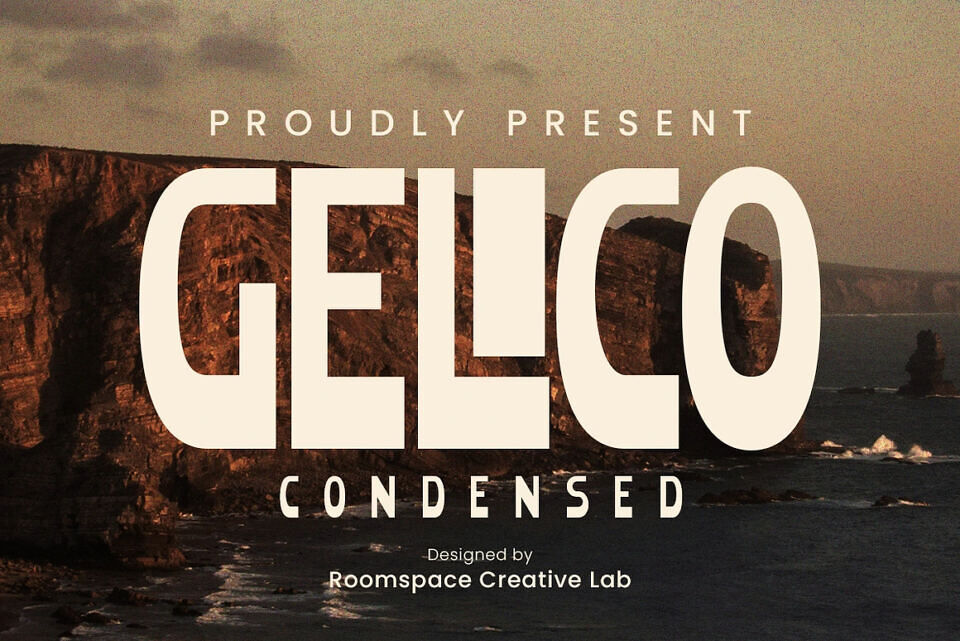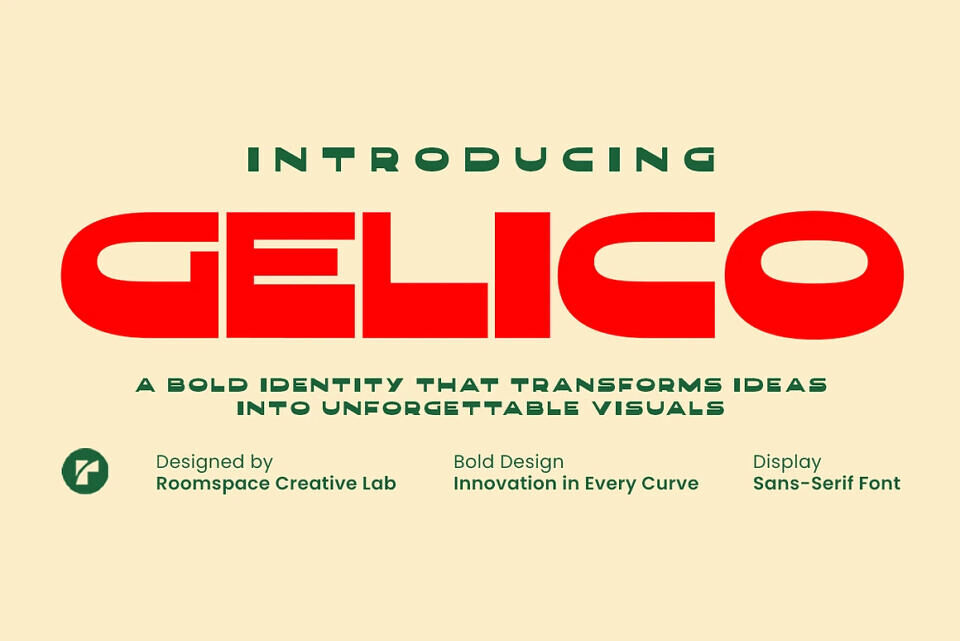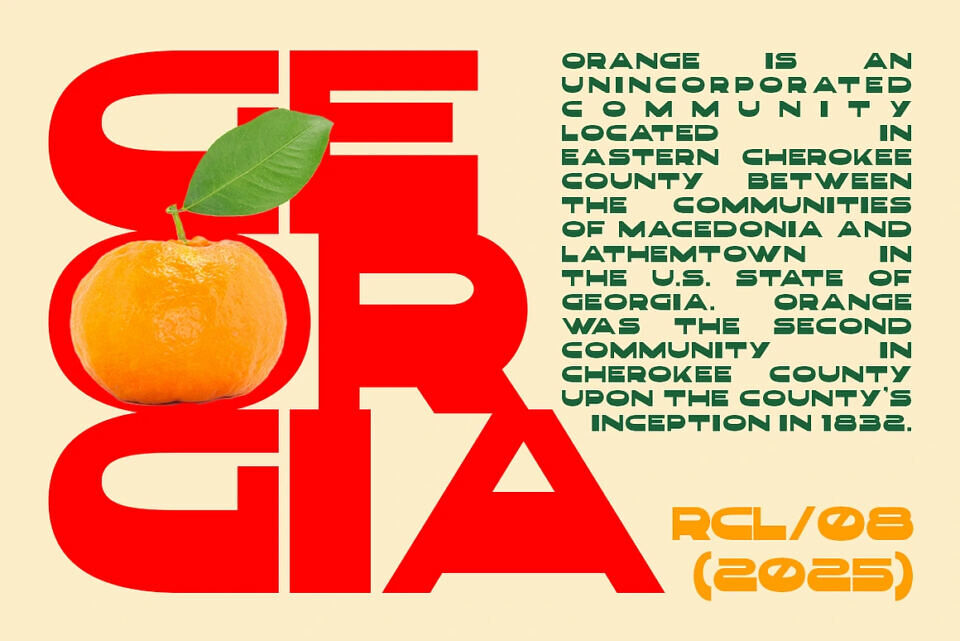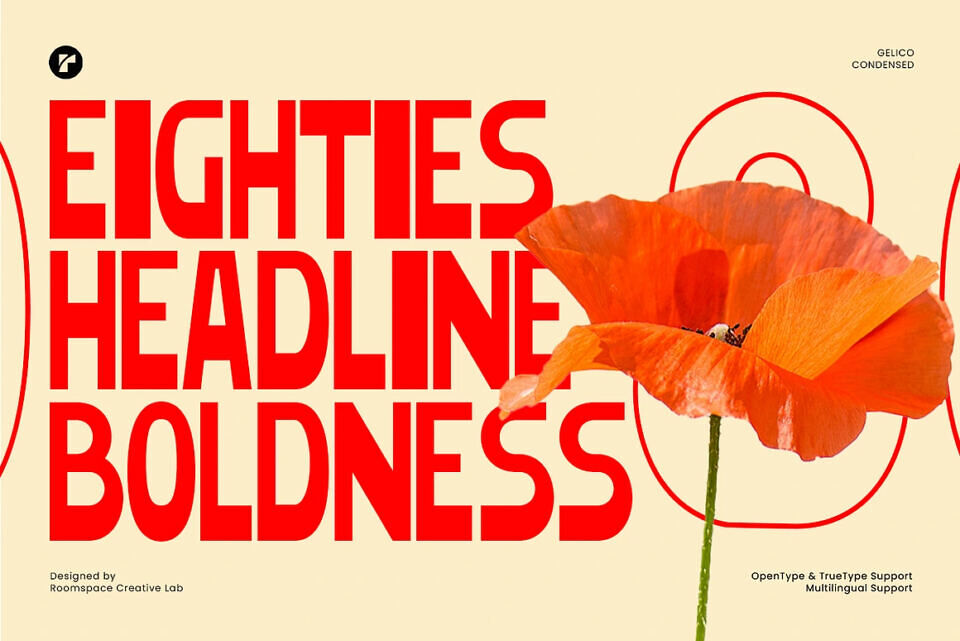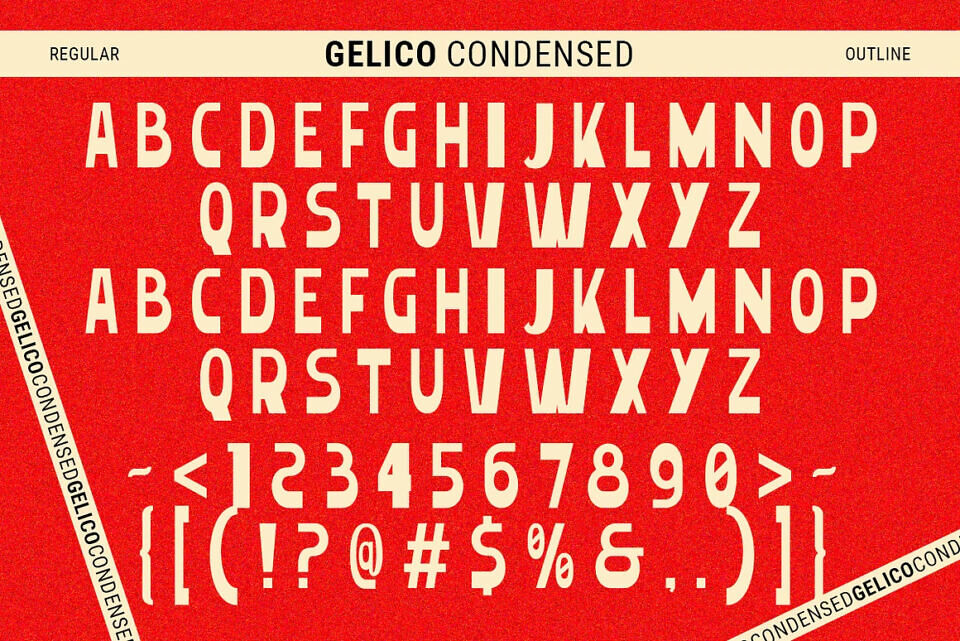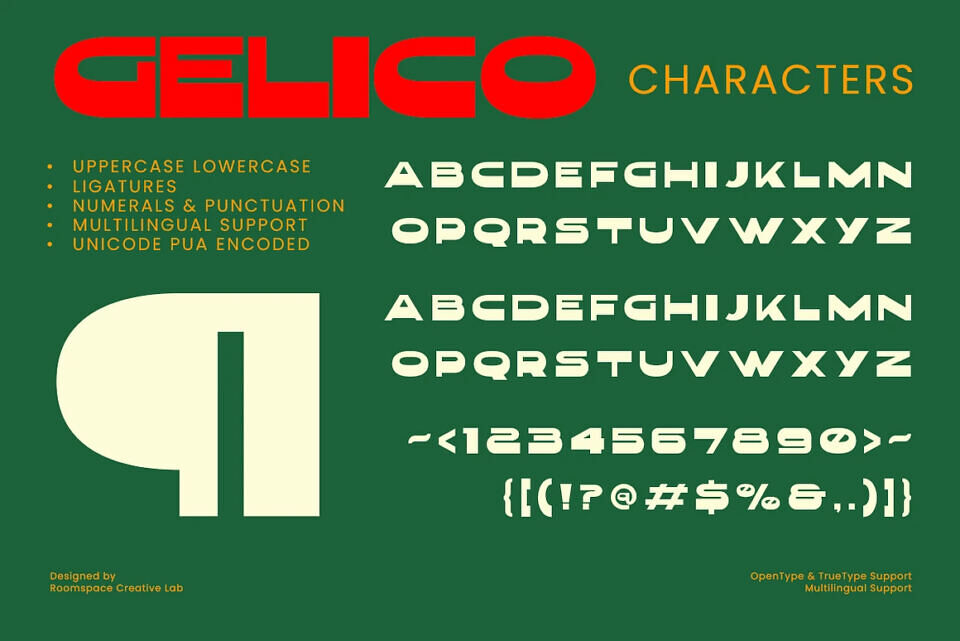
Gelico Font
Gelico Font family includes Gelico and Gelico Condensed, with Oblique and Outline versions.
Gelico is a bold geometric display font designed to make a strong statement. With its heavy weight and clean shapes, Gelico is perfect for projects that demand attention and unforgettable visuals. Its confident look is ideal for modern branding and creative headlines.
Gelico a bold condensed display font crafted to deliver strong impact and modern appeal. With its sleek condensed form, Gelico combines boldness and simplicity, creating a typeface that instantly grabs attention while maintaining clarity and style. Perfectly designed for contemporary projects, Gelico brings a professional yet creative vibe to your typography.